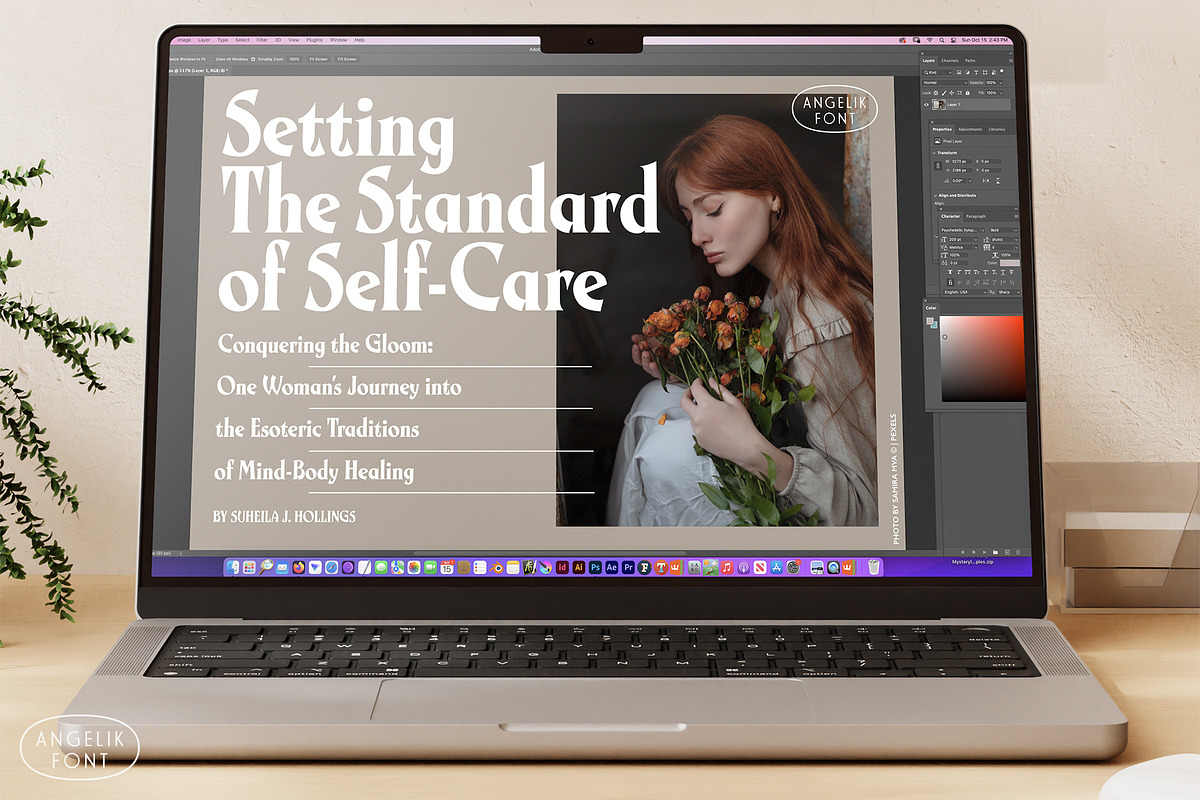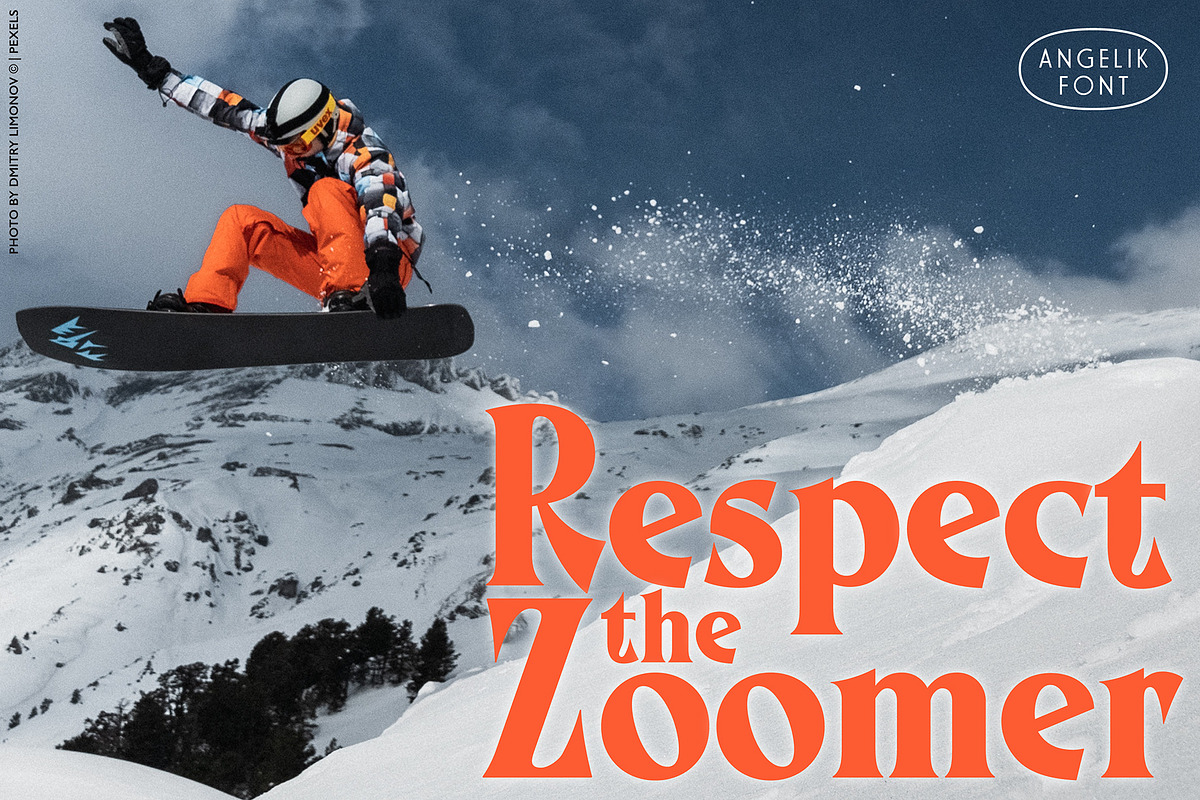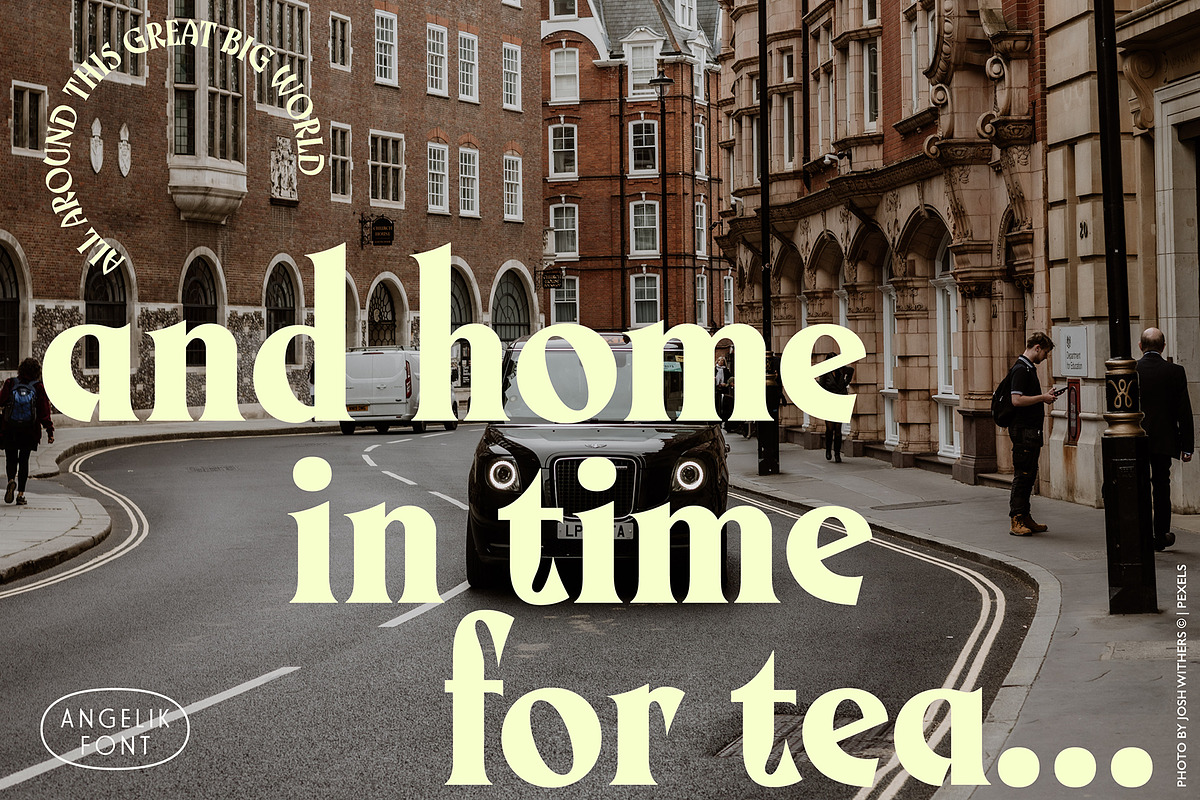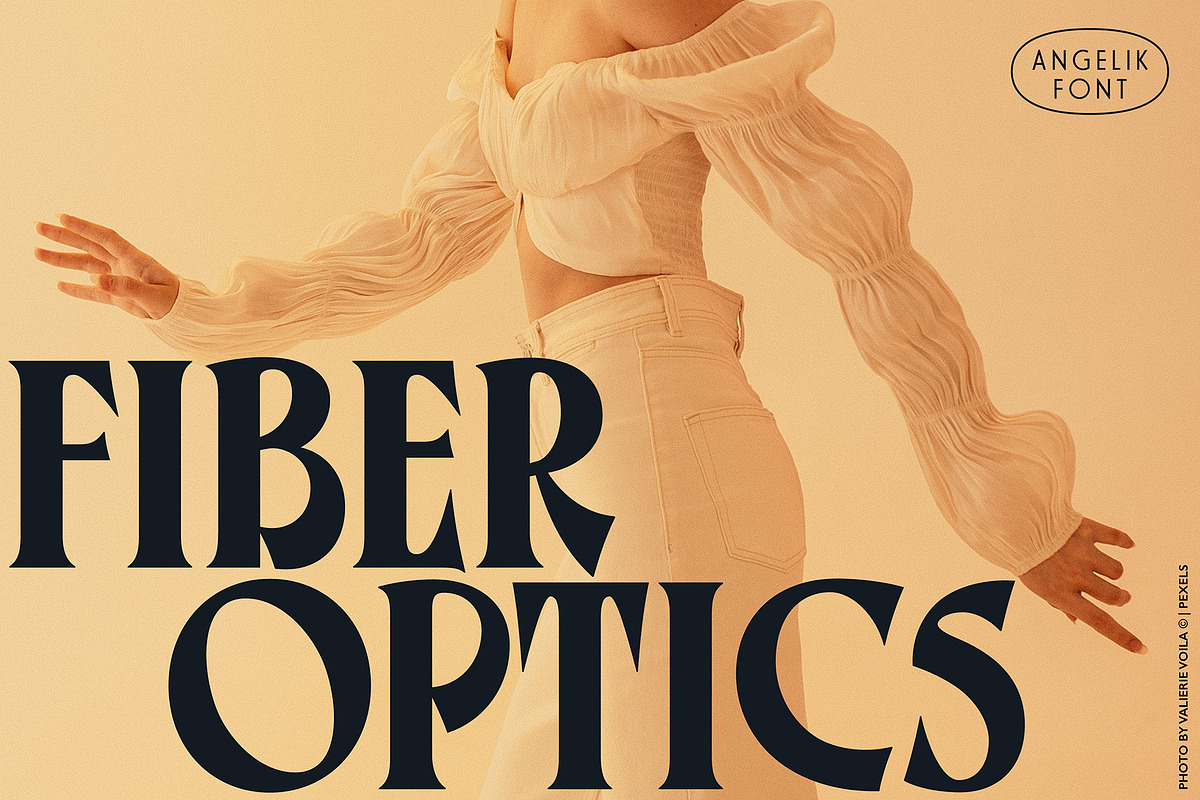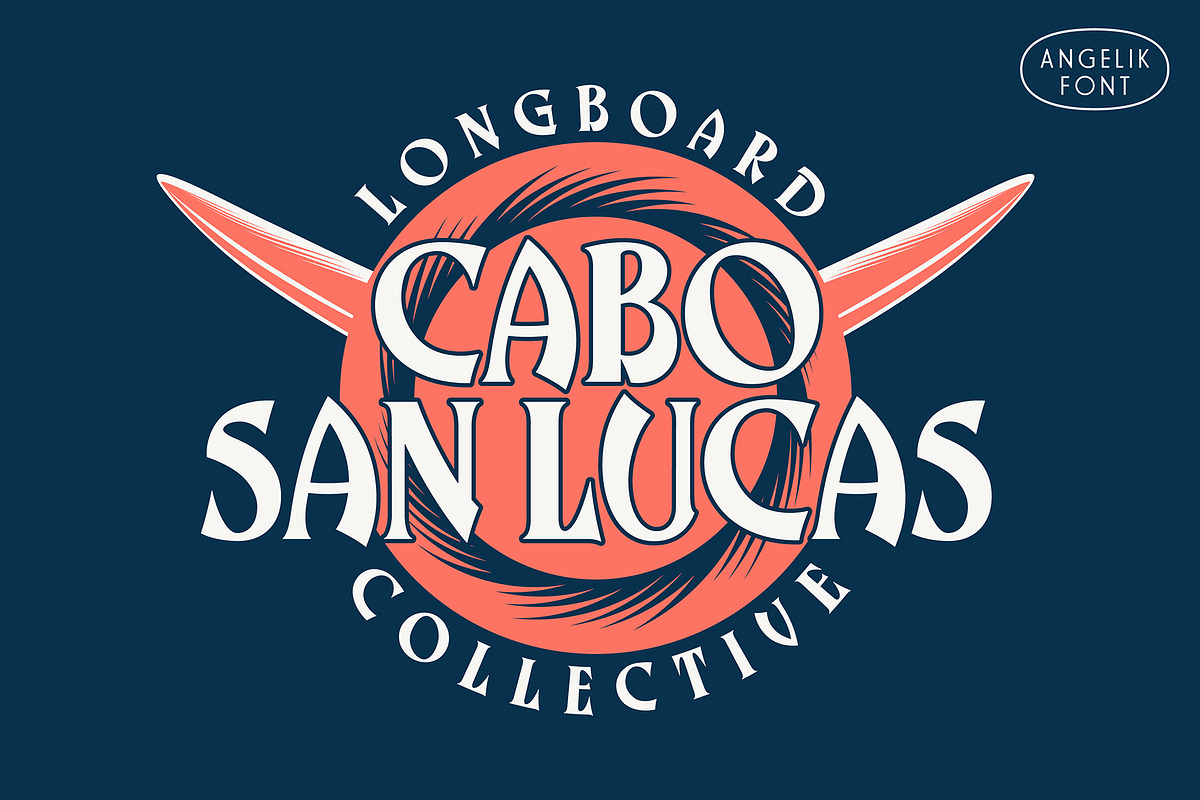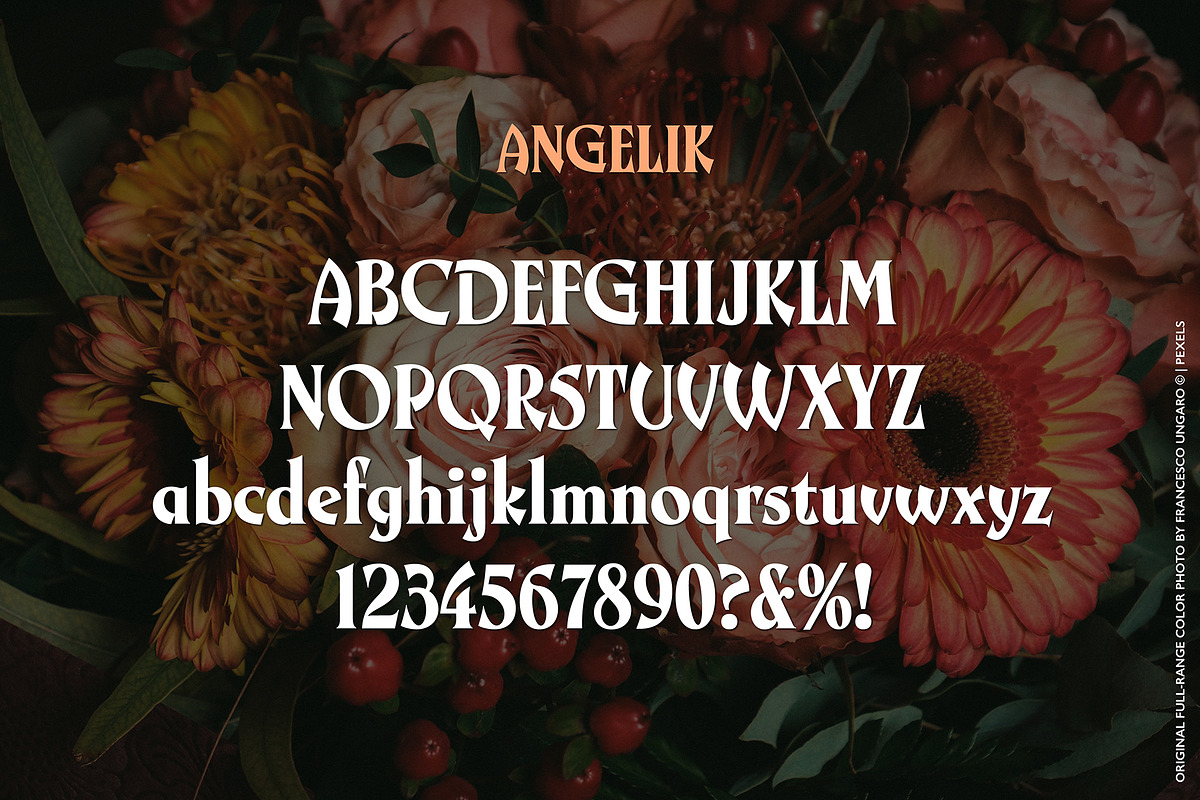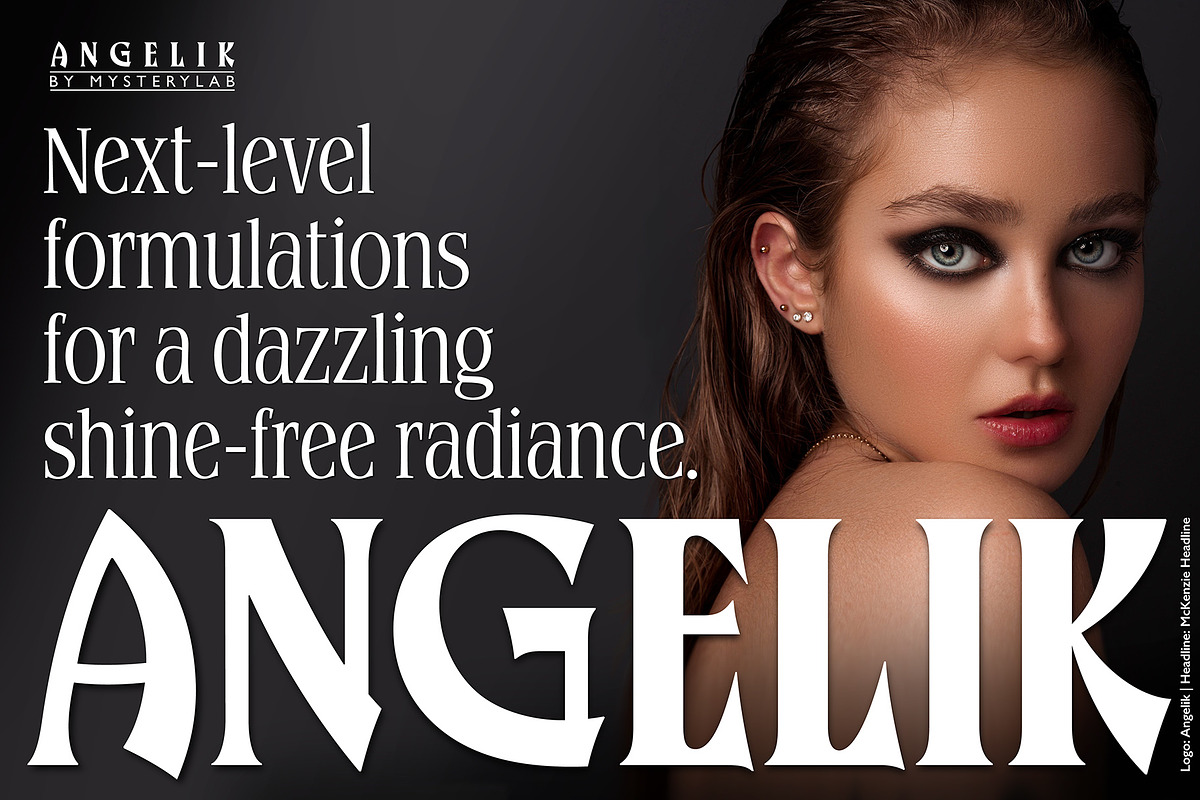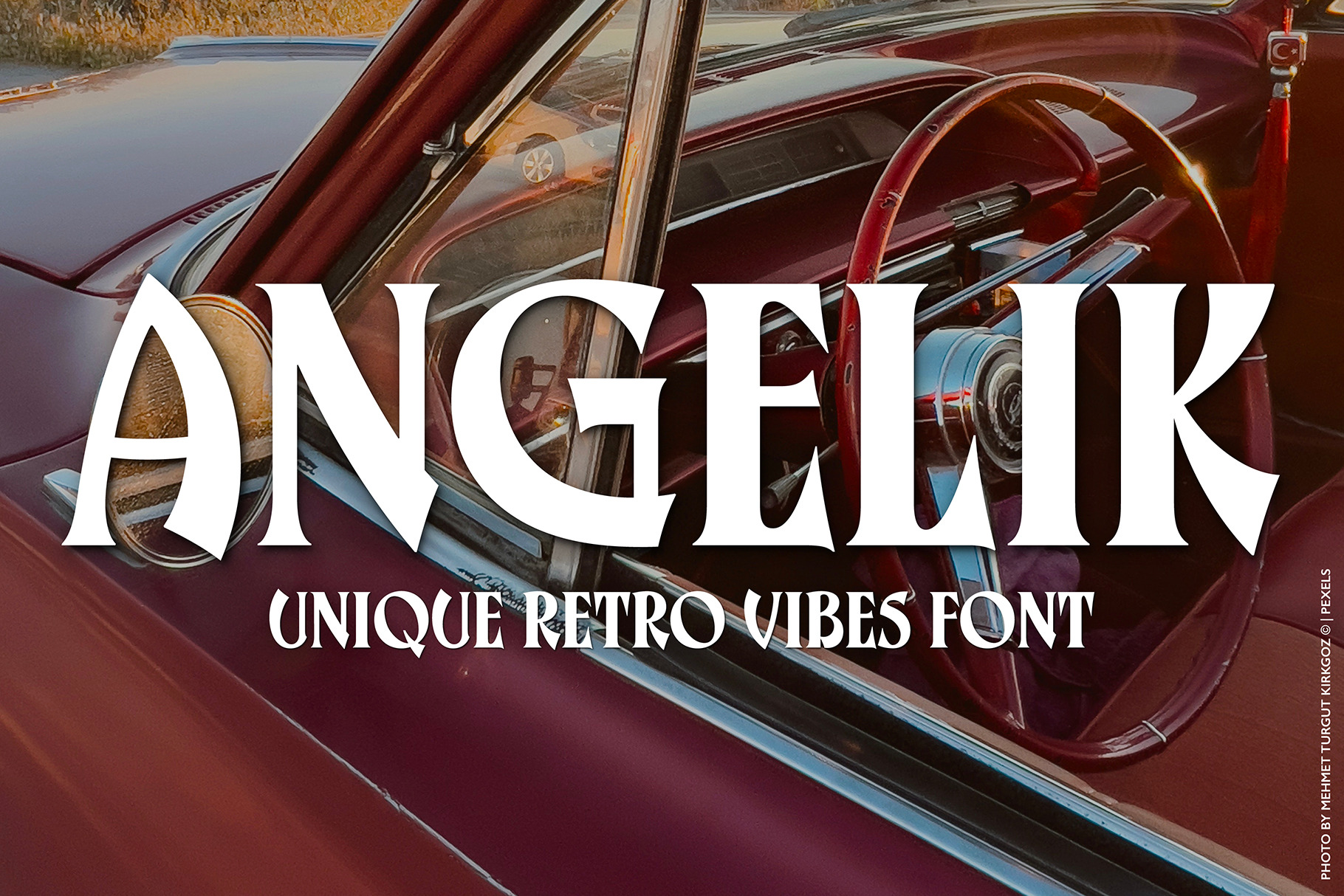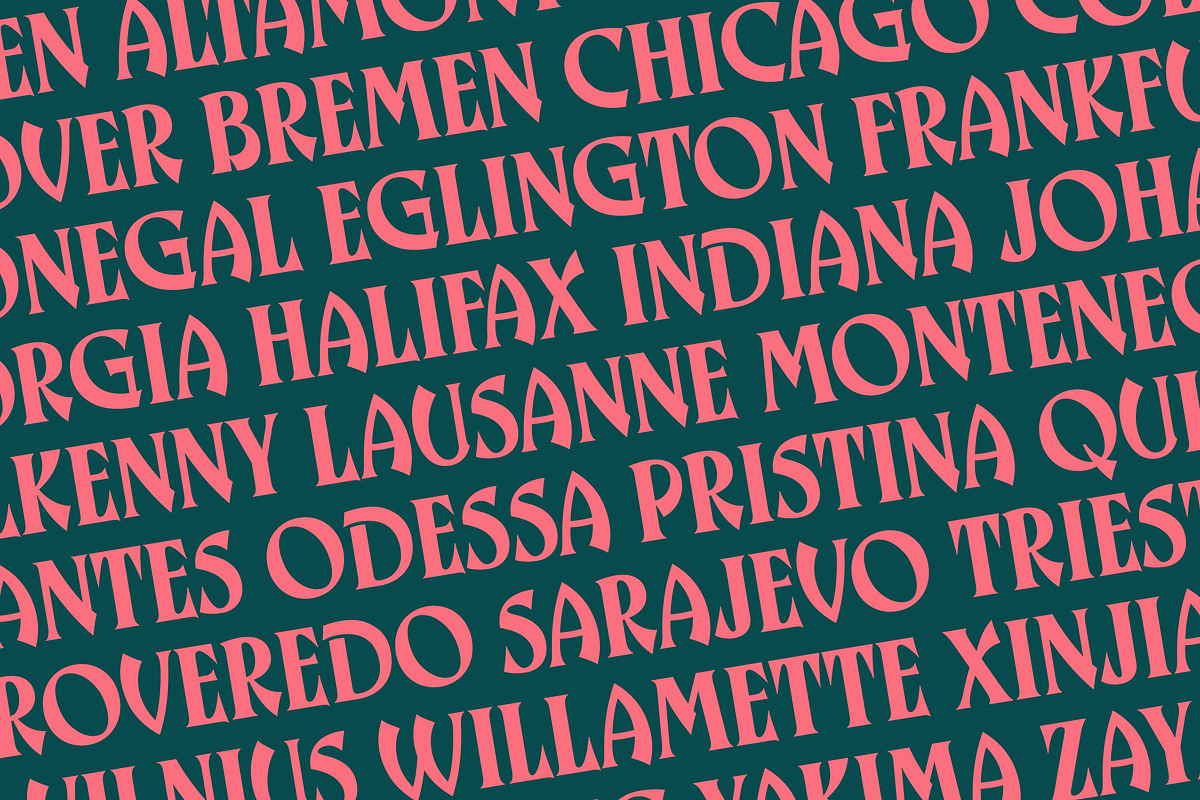
Angelik Font
Graphic designers, meet Angelik: a stylish typeface that you can really put through its paces. This unique font can bring one of its multiple personalities to a wide variety of design challenges. It’s a louder and prouder version of a typical assertive editorial-style bold serif headline font. But it can also really shine as a great choice for logos and branding, spanning a variety of vibes and styles. Works superbly in a high-fashion context, as well as in lowbrow surf-skate-ski-snowboard gear branding, or perhaps as an understated – yet exotic – vacation travel poster font. With its finely-tuned contouring, extensive kerning, and a multilingual character set, Angelik will not let you down.